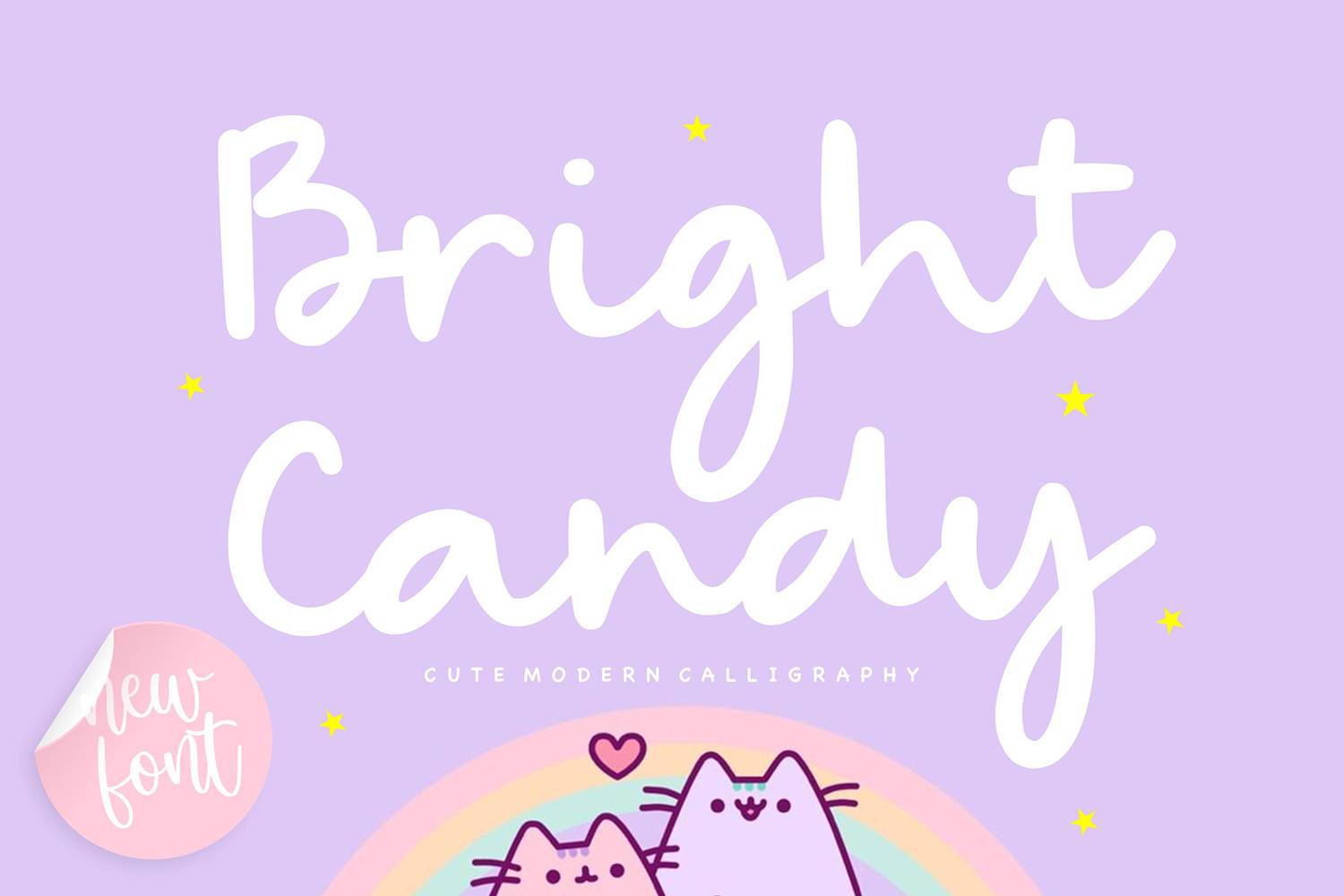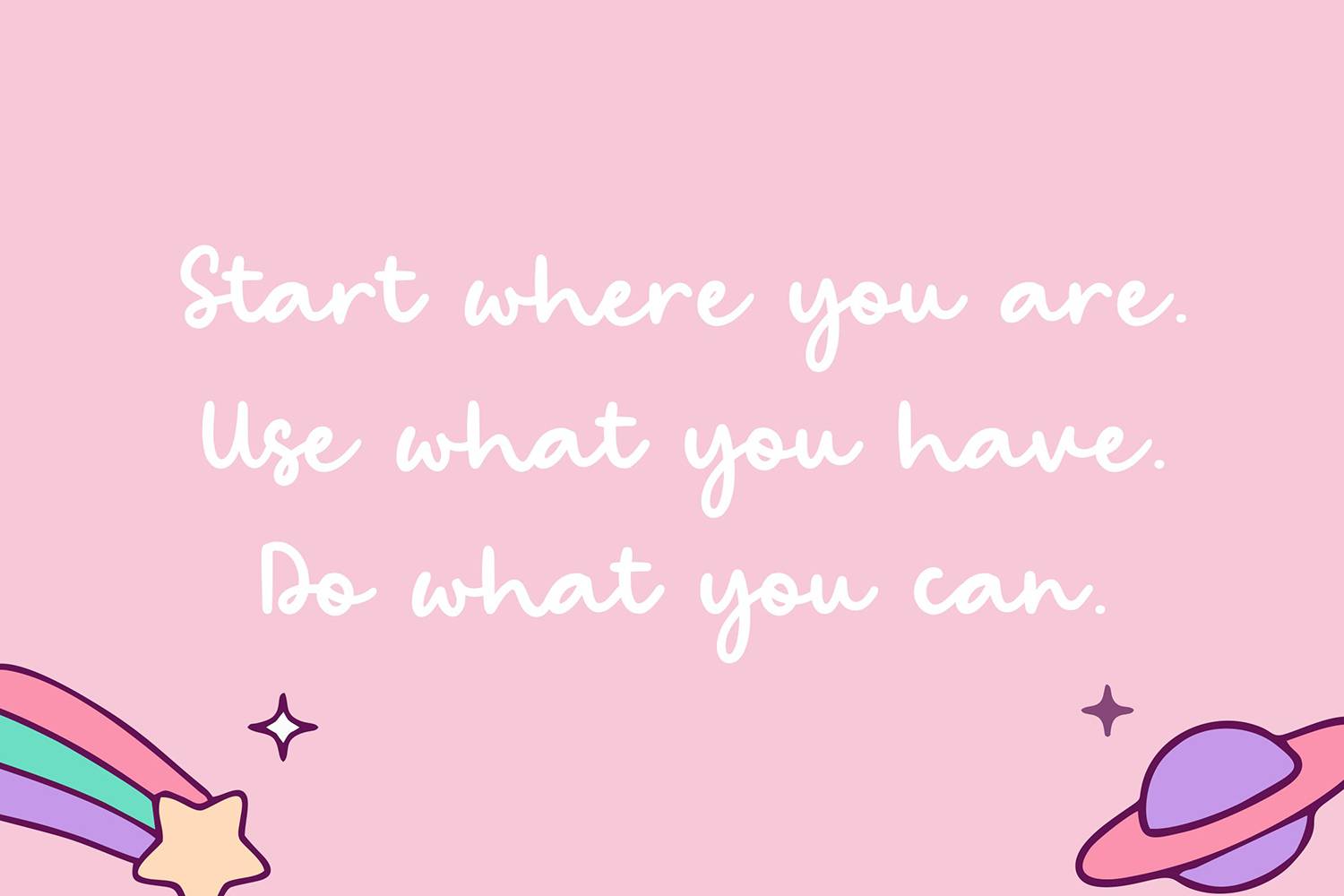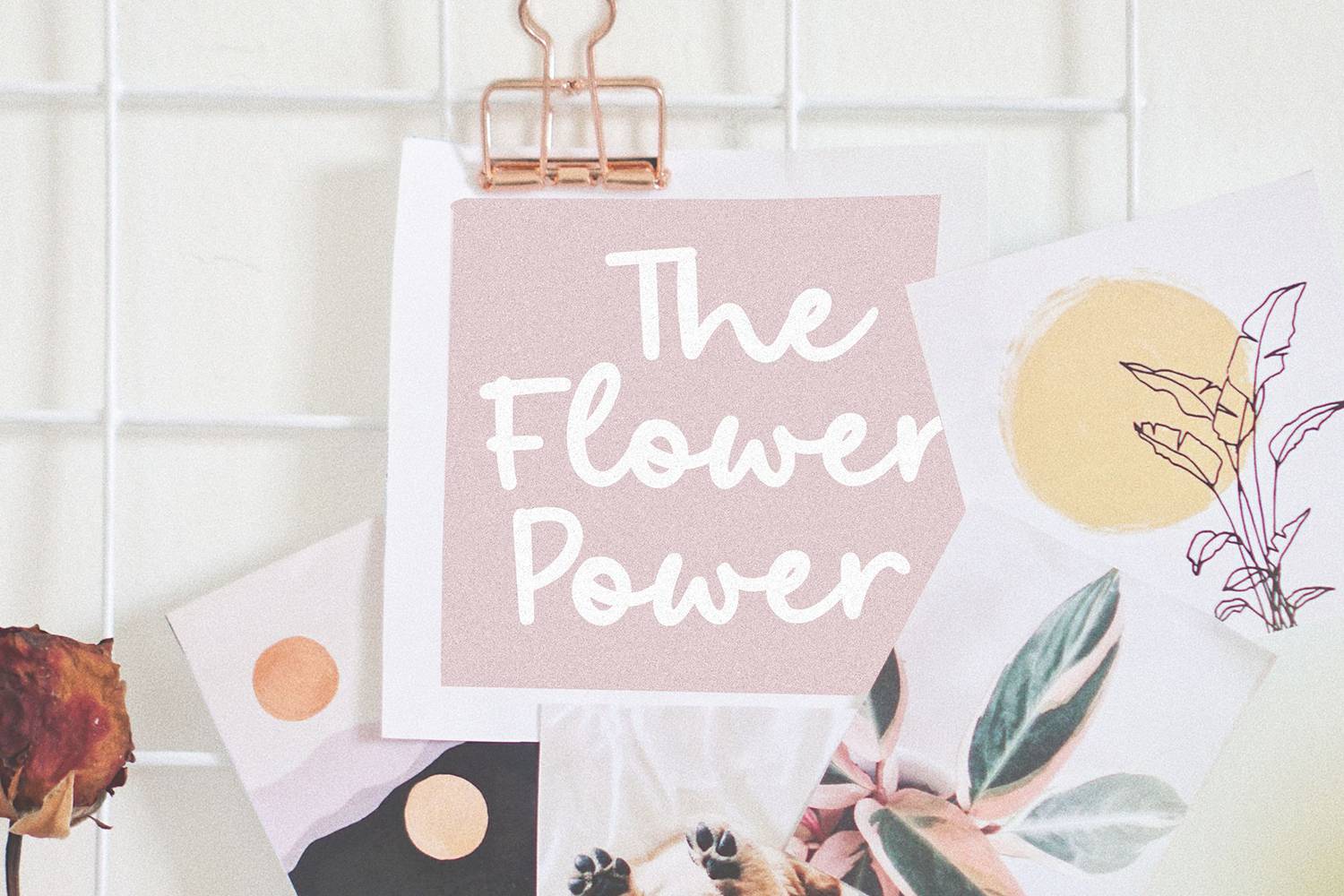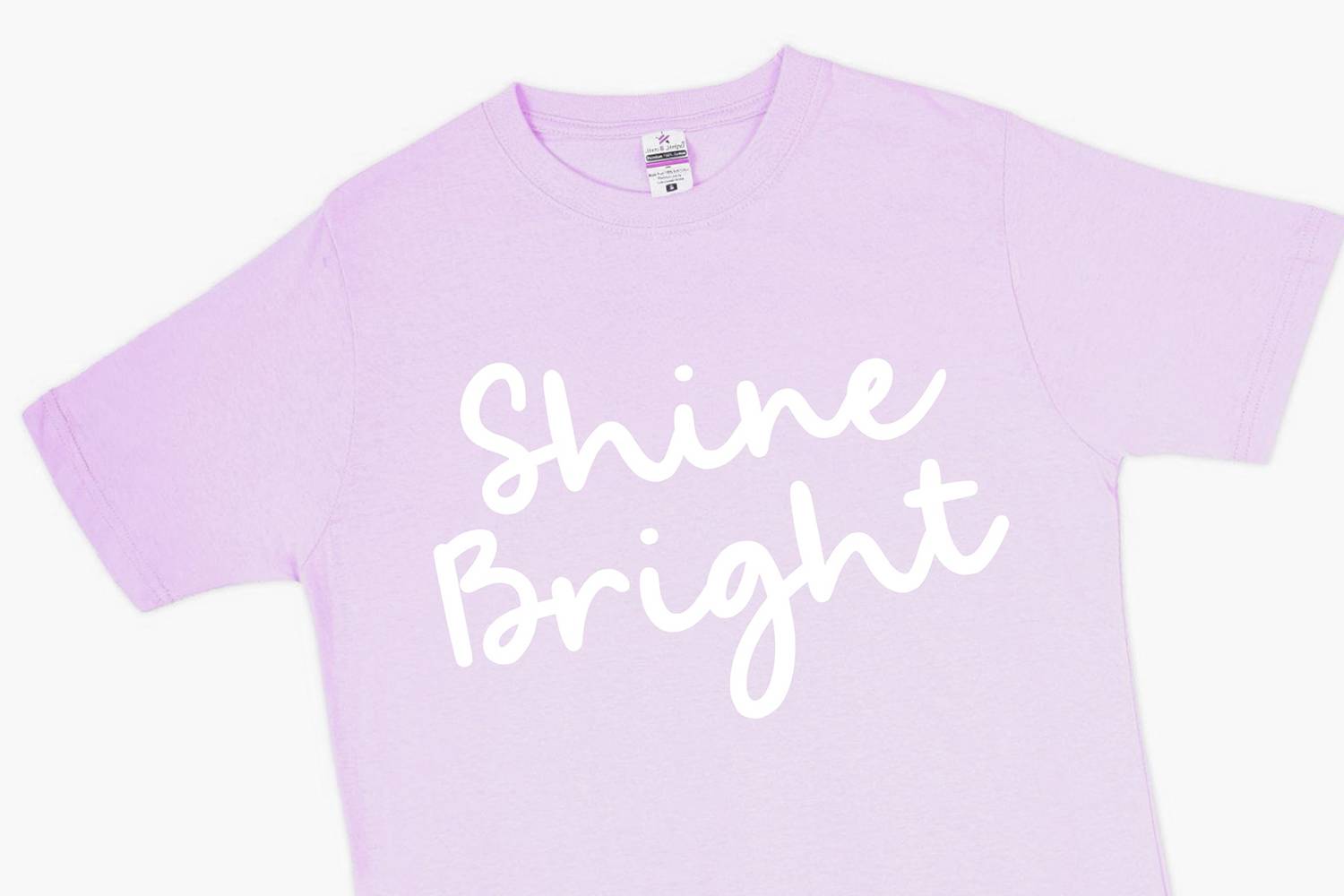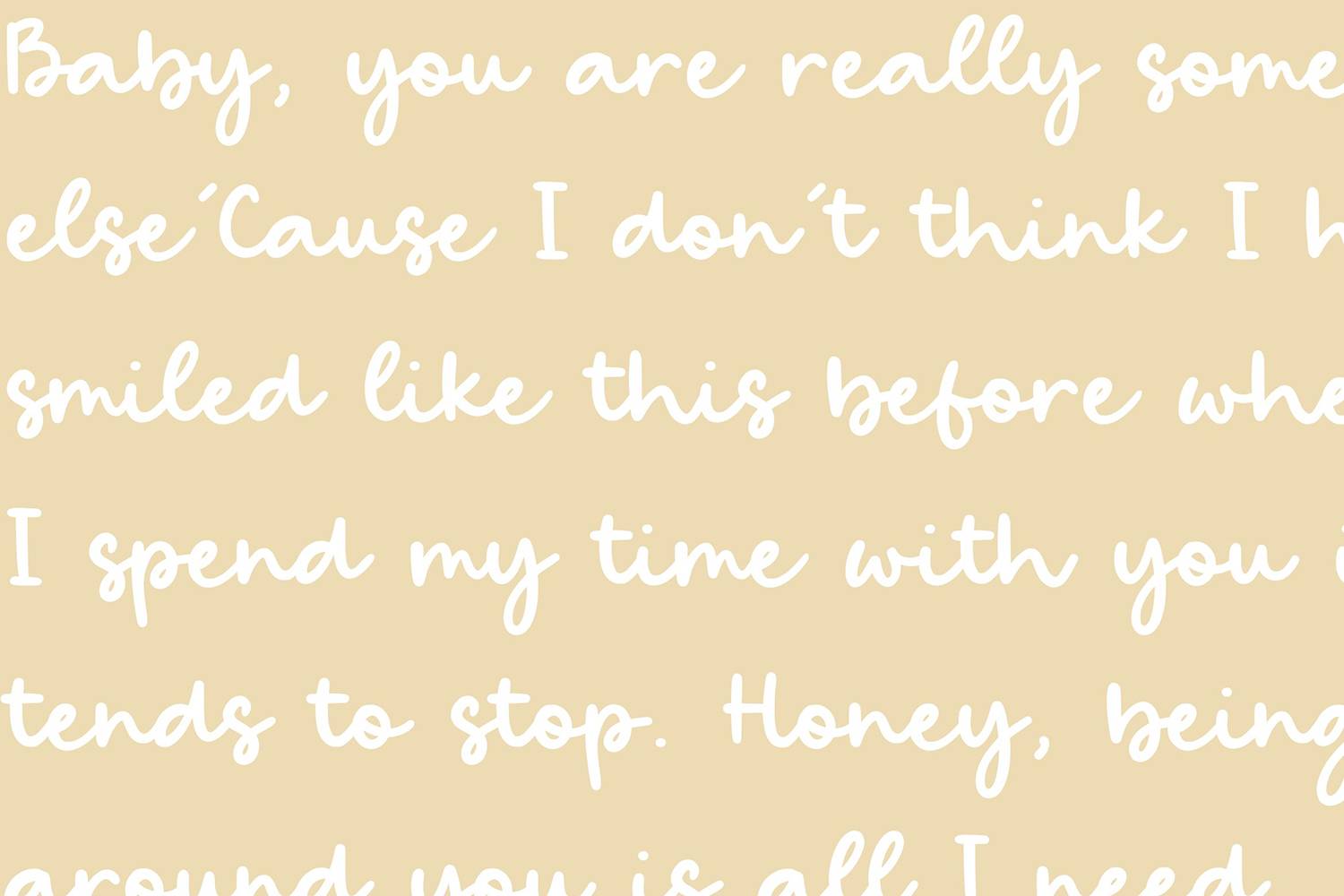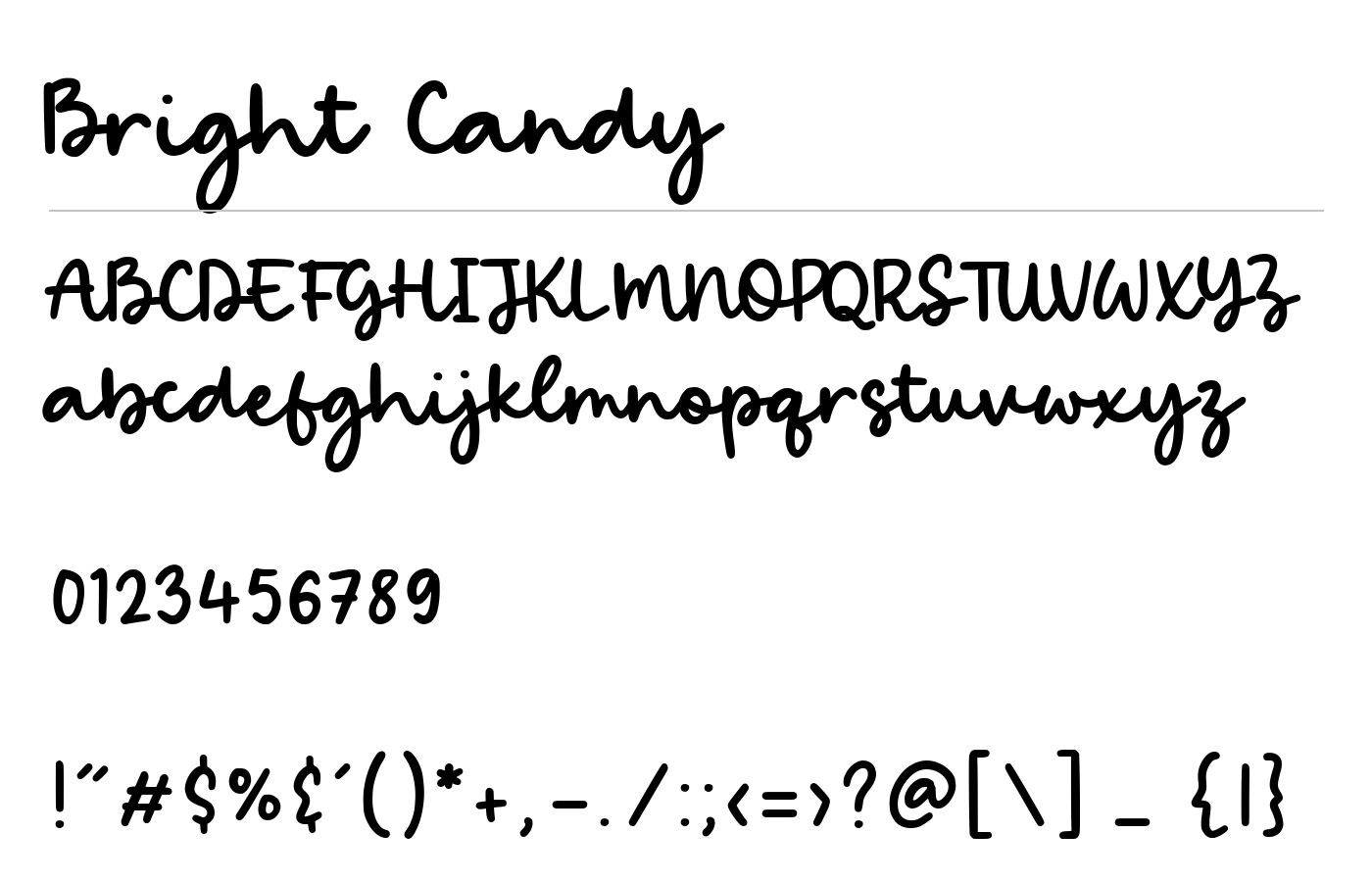
Bright Candy is a playful and casual handwritten font with smooth, rounded strokes that give it a friendly and approachable feel. Its lively letterforms, featuring both uppercase and lowercase characters, along with simple, clear numerals and punctuation, make it perfect for informal branding, children’s products, and creative projects seeking a warm, personal touch. This font works well in headlines, logos, and packaging where a cheerful and inviting vibe is desired.
Bright Candy Font
About Bright Candy Font